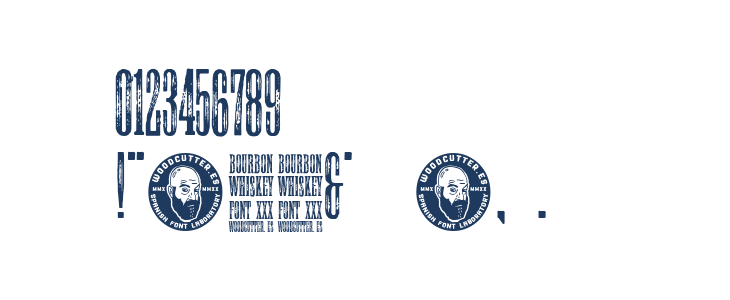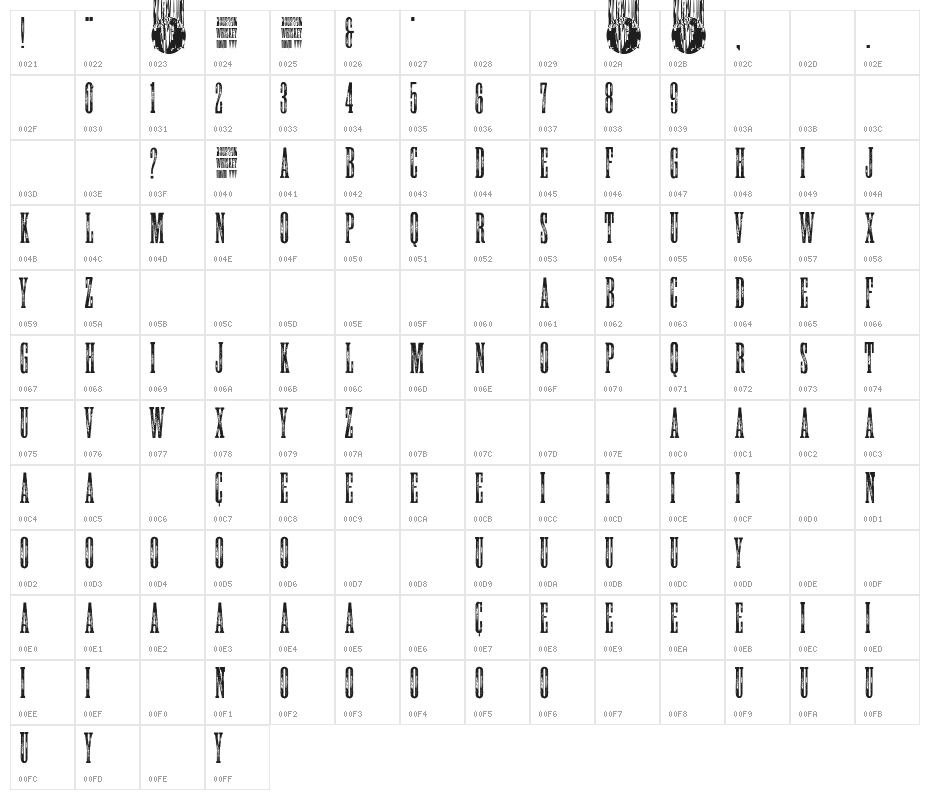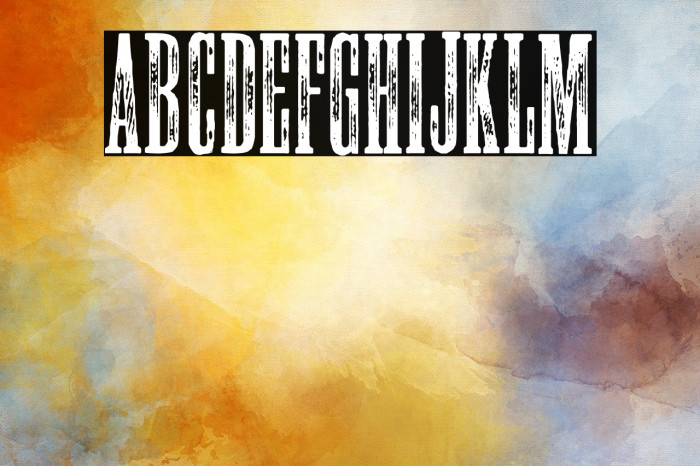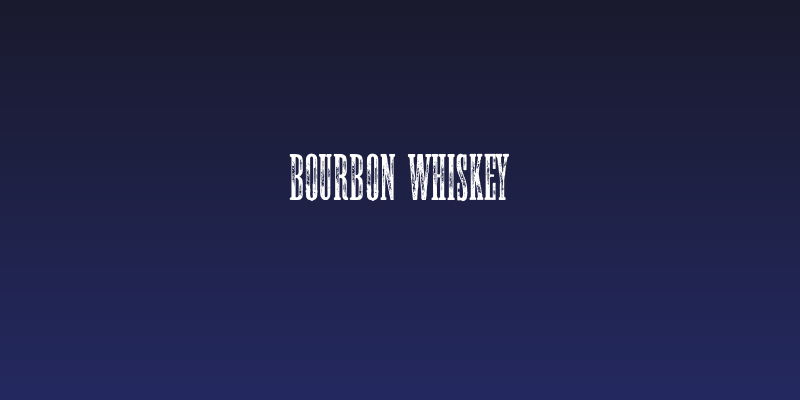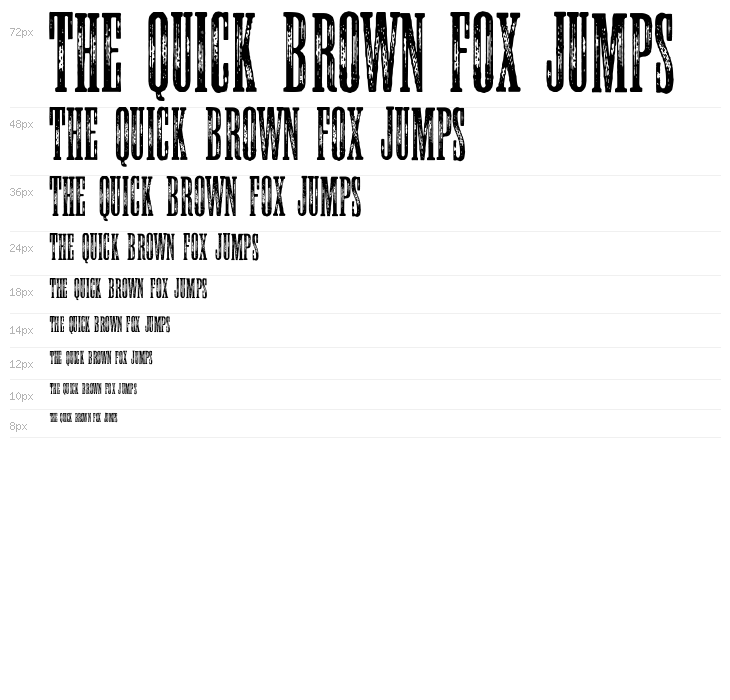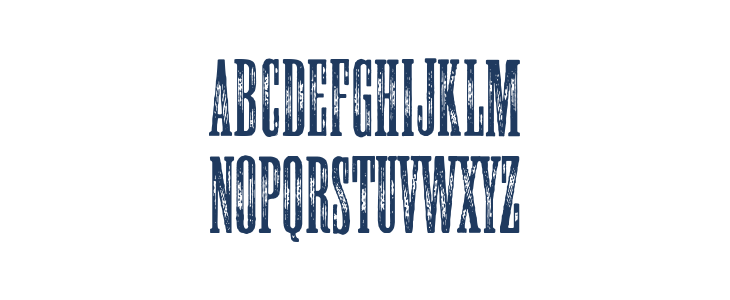
Bourbon whiskey Font
Bourbon whiskey Description
This font features a bold, distressed style that evokes a vintage, rustic feel. The characters are tall and narrow with a textured appearance, giving them a worn, aged look. The uppercase letters are prominent and commanding, while the lowercase letters maintain the same rugged aesthetic. Numbers and special characters follow the same design, ensuring consistency across all elements. The font's unique texture makes it ideal for projects that require a touch of nostalgia or a handcrafted vibe.
| Proposed Projects | Ideal for branding, packaging, posters, and signage that require a vintage or handcrafted look. |